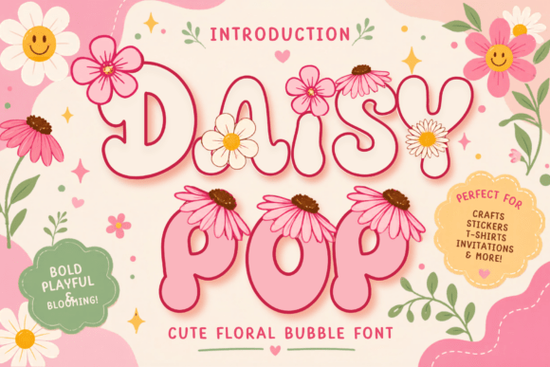
If you're looking for a font that feels like sunshine and wildflowers in your designs, Daisy Pop Font delivers exactly that. This playful display typeface blends bold, bubbly letterforms with delicate floral details daisies, petals, and wildflower accents that peek out from each character. It’s ideal for anyone wanting to add a cheerful, cottagecore-inspired touch to t-shirts, stickers, invitations, sublimation projects, or social media graphics.
What makes Daisy Pop Font stand out?
Unlike many fonts that stick to clean lines or minimal decoration, Daisy Pop embraces whimsy. Each letter is thoughtfully crafted with small floral elements woven into the strokes some daisies bloom at the top of letters, others curl around curves like vines. The result? A lively, hand-drawn feel that feels both fun and intentional. Whether you’re designing for kids, crafting for a boutique brand, or making gifts for friends, this font adds personality without overwhelming the message.
The retro vibe gives it extra charm think 1970s-inspired art, vintage greeting cards, and cheerful branding. It works especially well when paired with soft pastel colors, but even on dark backgrounds, the details pop beautifully.
Perfect for creative projects across categories
Whether you're a crafter using Cricut machines, a print-on-demand seller, or a small business owner building a brand identity, Daisy Pop fits right in. Here’s how it shines in real-life uses:
- T-shirts and apparel: Add a bright, artistic flair to summer wear or children’s clothing.
- Stickers and decals: The bold shapes and floral details make them instantly eye-catching.
- Invitations and greeting cards: Ideal for baby showers, weddings, or birthday parties with a rustic or garden theme.
- Nursery decor and classroom materials: Its friendly look helps create warm, inviting spaces.
- Branding and logos: Great for brands focused on nature, wellness, or handmade goods.
- Social media graphics: Stand out in feeds with a font that feels authentic and joyful.
Because it’s a display font, it’s best used in larger sizes perfect for headlines, banners, or centerpieces. Avoid using it for long blocks of text, but when used strategically, it becomes a standout feature.
How does it compare to other fonts in the collection?
If you’ve explored similar styles on Creative Fabrica, you’ll notice that Daisy Pop has a unique balance between playfulness and clarity. While Storyberry Font leans more toward soft script elegance, and Roughcraft Font offers a rugged, hand-painted texture, Daisy Pop sits in a sweet spot whimsical but readable, decorative yet not distracting.
For something with a bit more modern edge, Modryn Font brings geometric precision with a floral twist. And if you love sun-kissed, carefree vibes, Finger Summer Font shares some of the same energy though it leans more toward casual beachy themes than garden charm.
Each of these fonts lives in the same creative ecosystem, so if you enjoy Daisy Pop, you might also appreciate exploring the others for variety in your design toolkit.
Best practices for using Daisy Pop Font
To get the most out of this font, keep these tips in mind:
- Use it for short phrases or titles not entire paragraphs.
- Pair it with clean, simple fonts for body text (like a sans-serif) to keep balance.
- Keep color schemes light and natural: think creams, mint greens, soft yellows, and pale pinks.
- Test it on different backgrounds white works well, but even black or textured papers show off the floral details nicely.
- When printing, ensure high resolution (300 DPI) so the fine details don’t blur.
Remember, the goal isn’t just to be cute it’s to communicate joy, creativity, and authenticity. That’s where Daisy Pop truly excels.